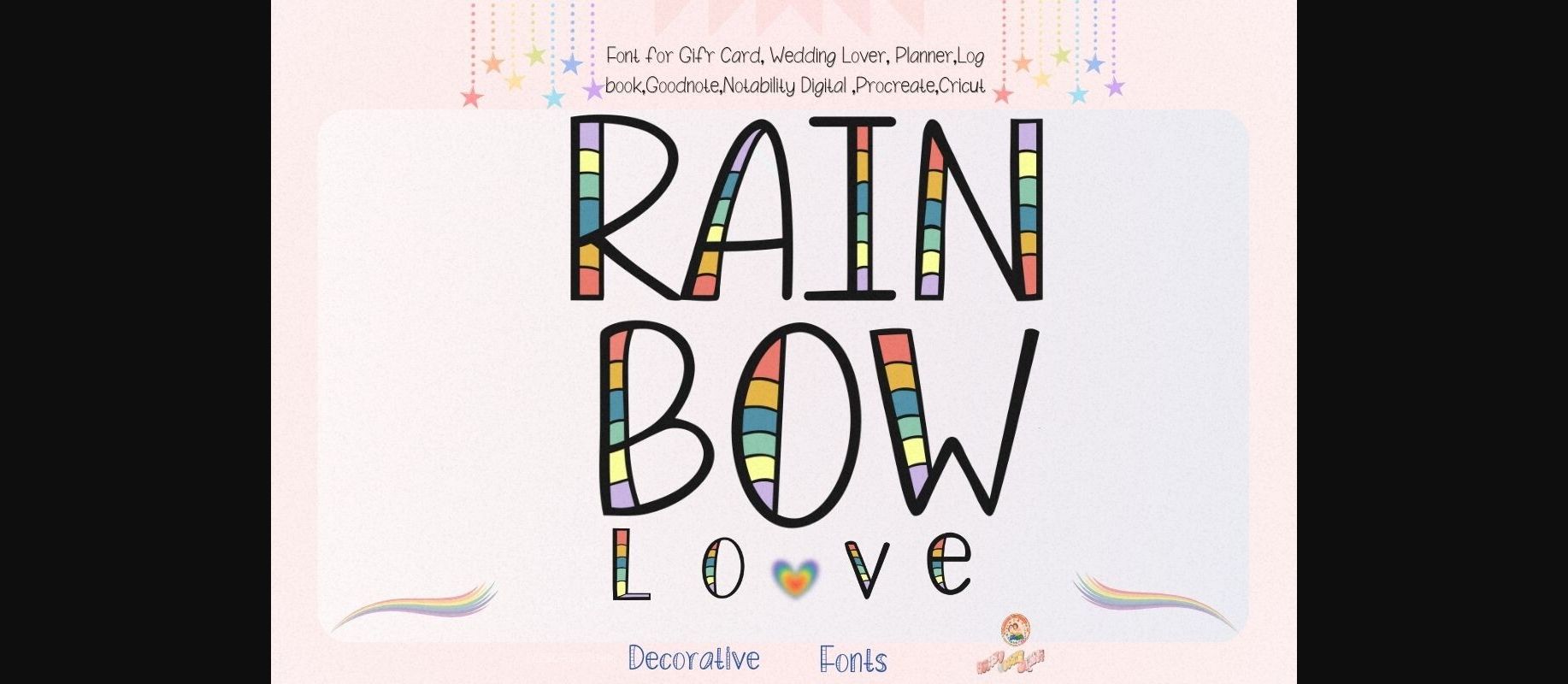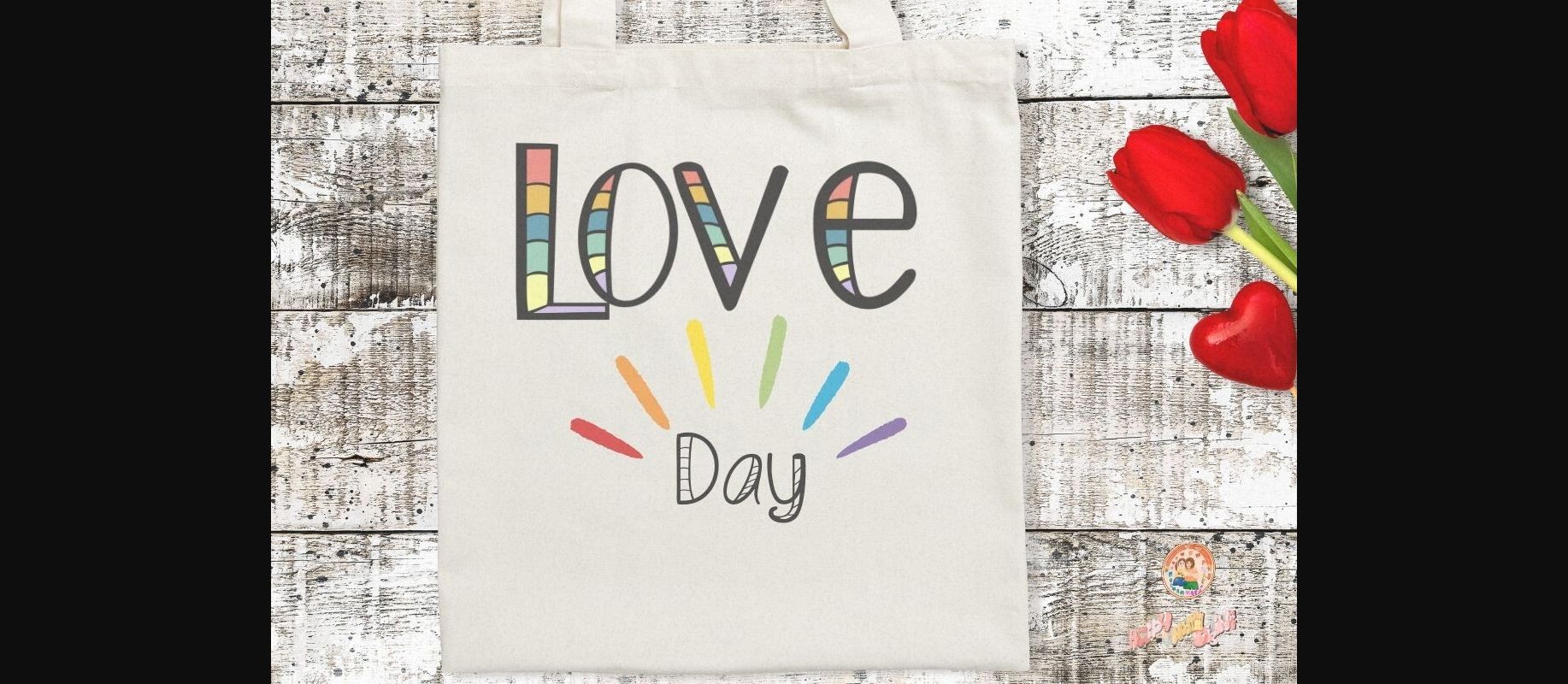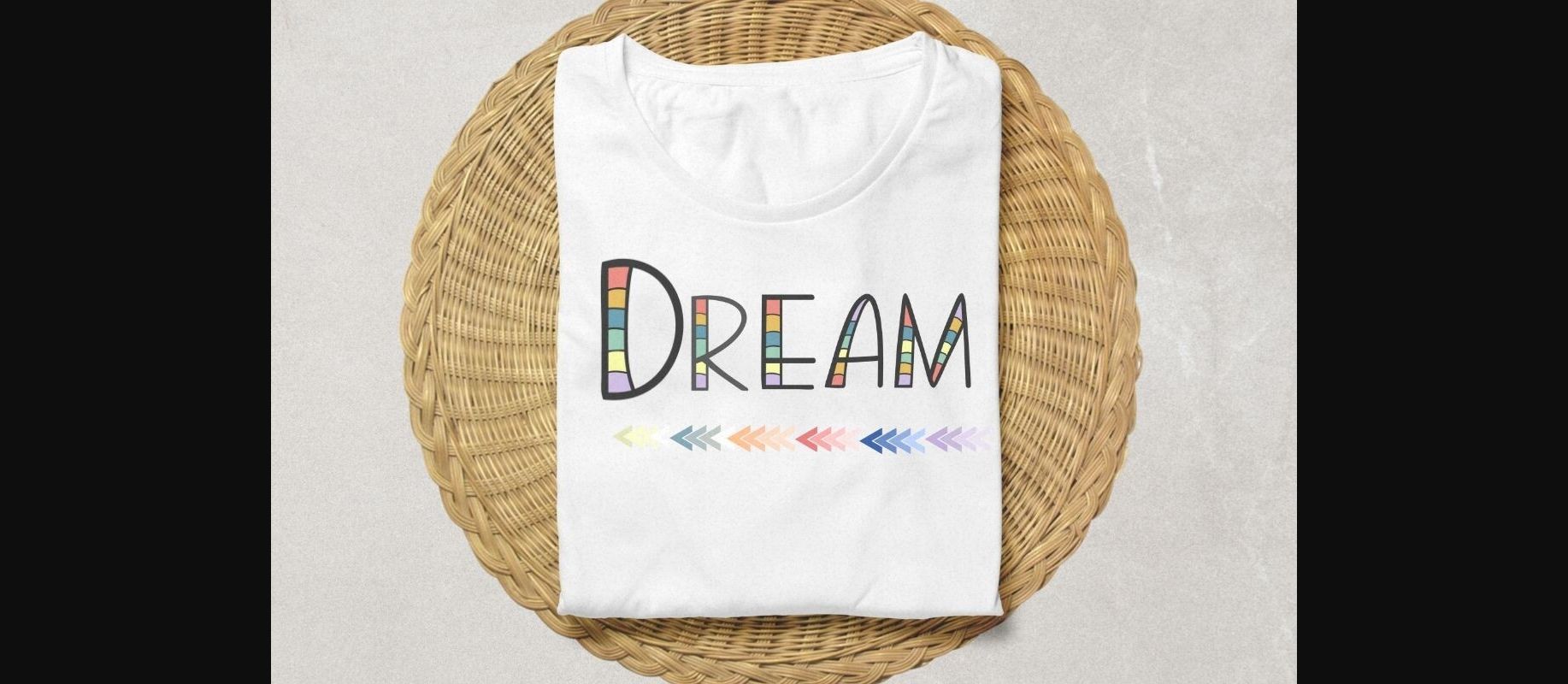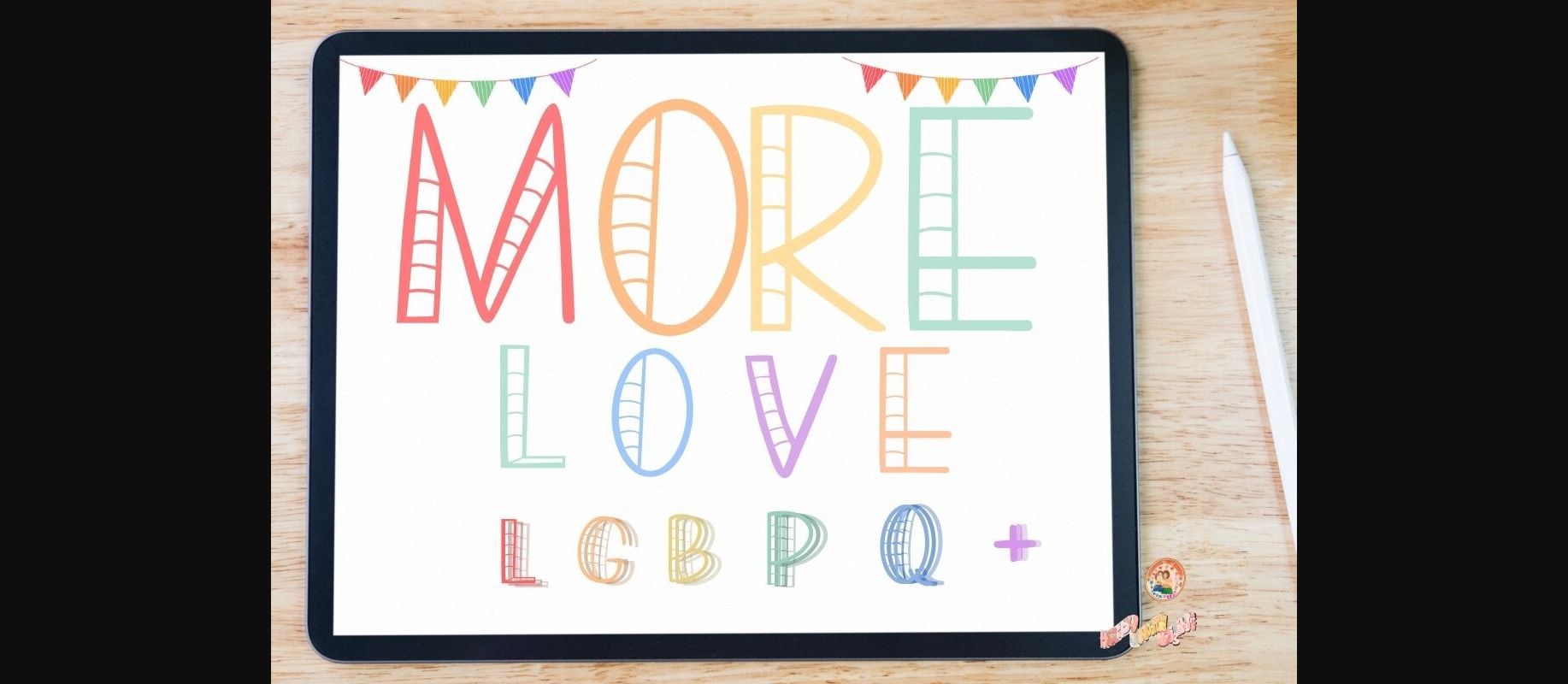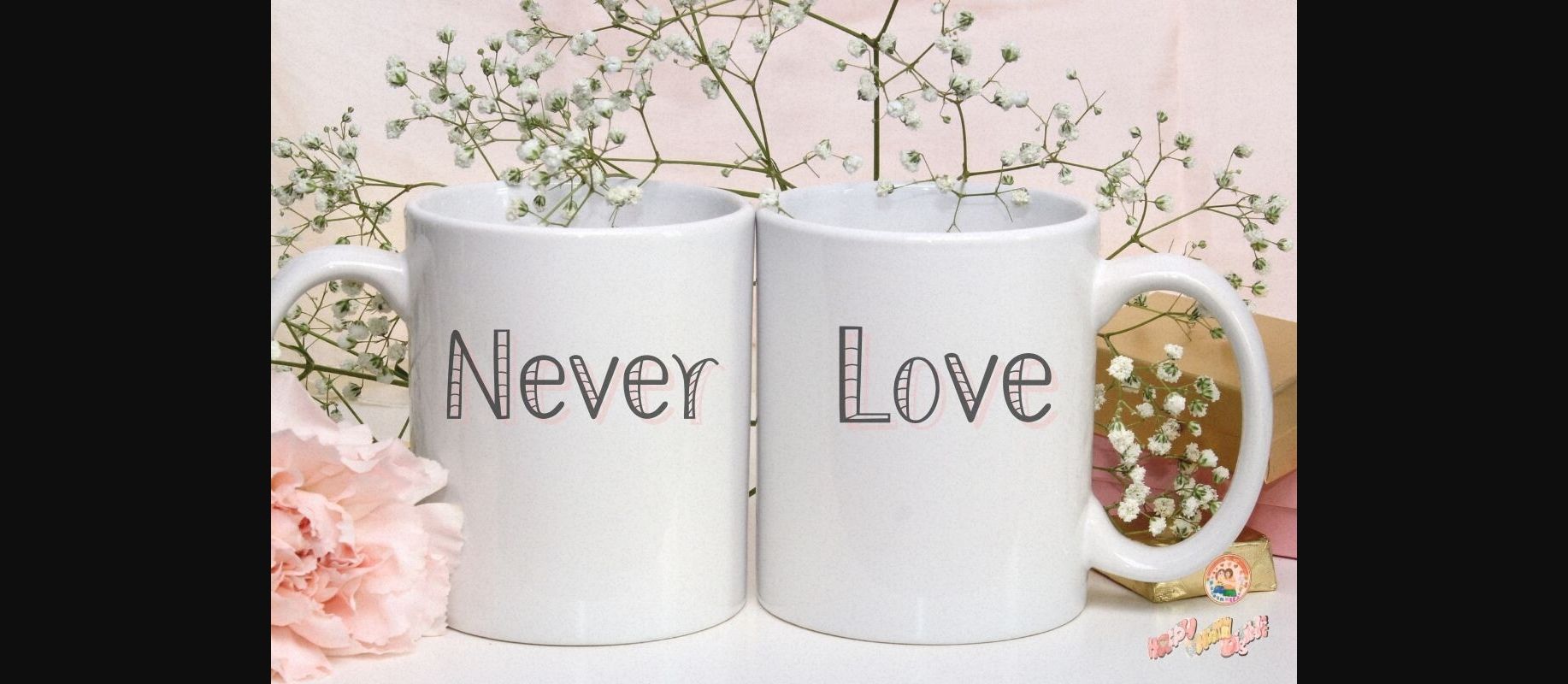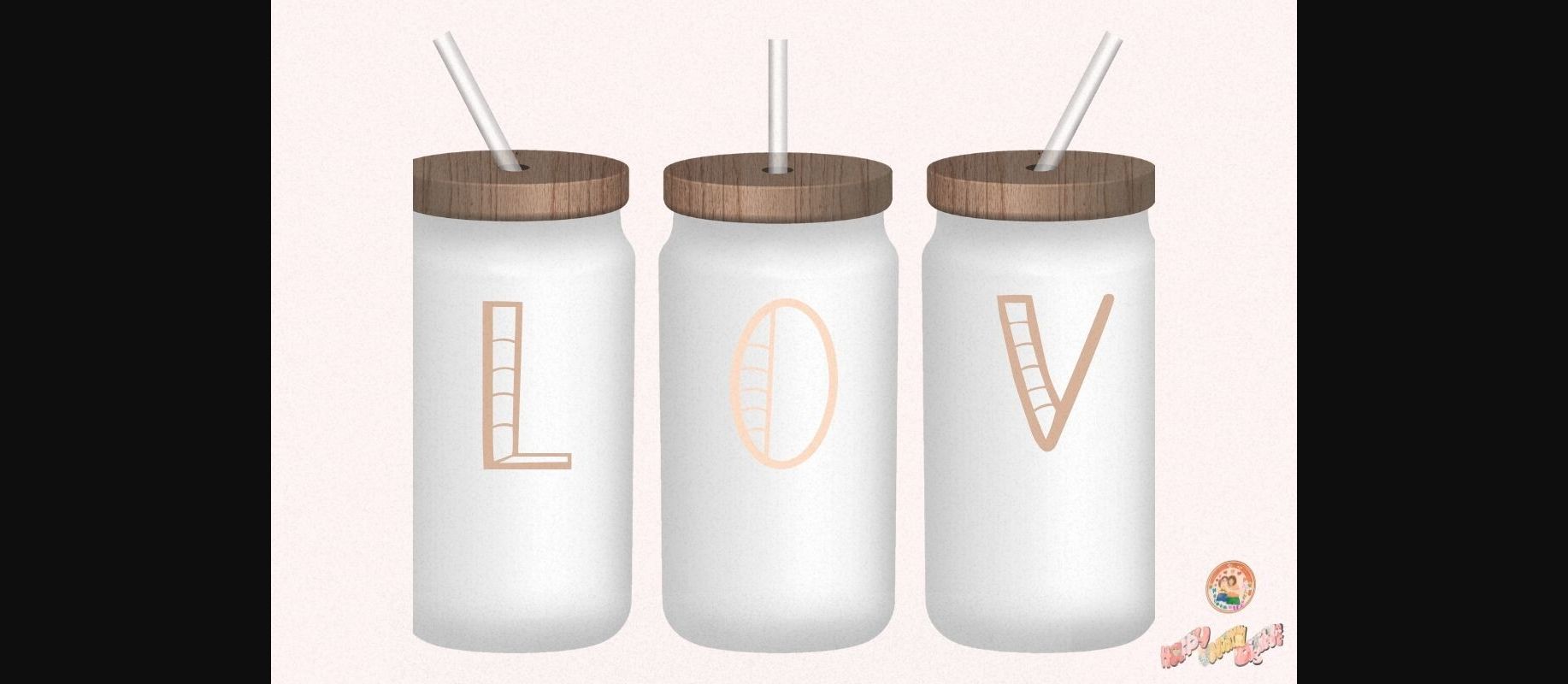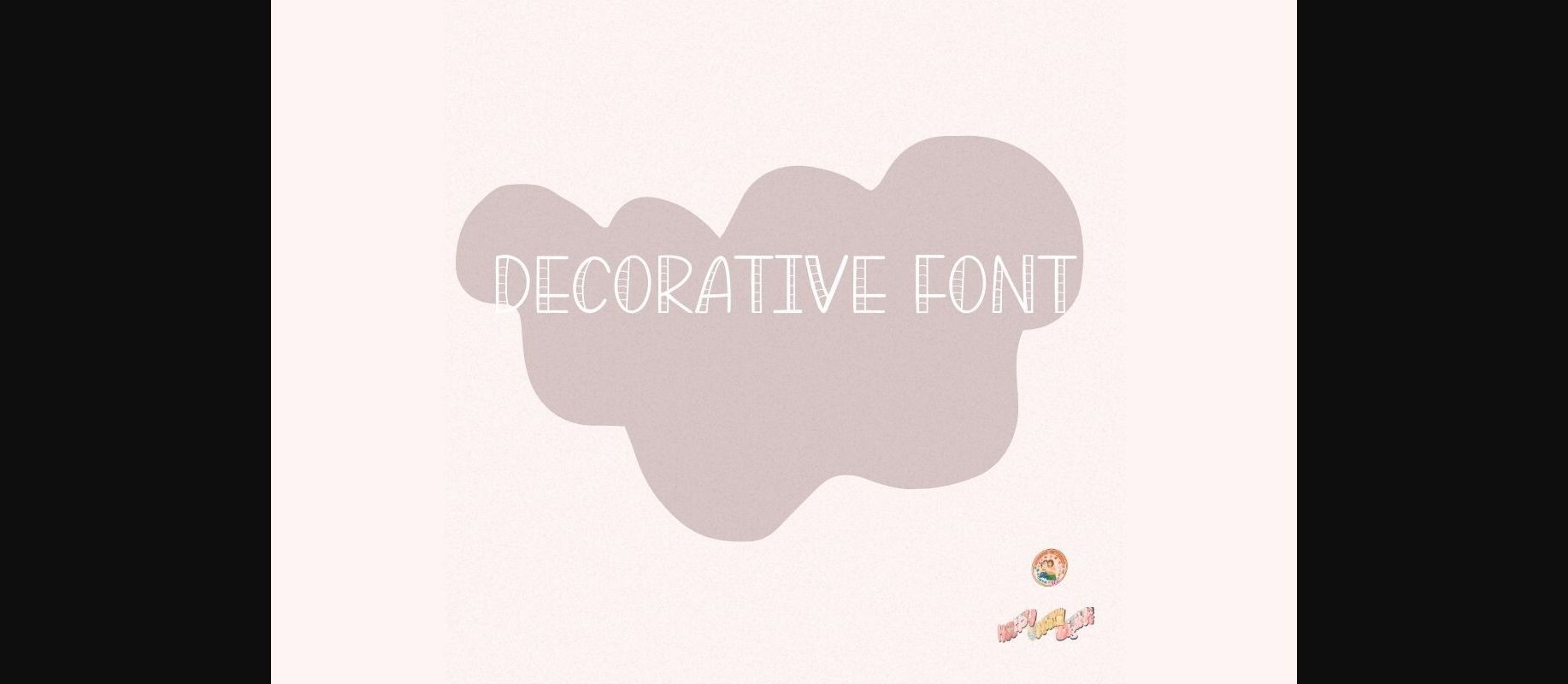
Rainbow Love Font
About Rainbow Love Font
Meet Rainbow Love, the sweet and playful decorative font that adds a touch of cuteness to your projects! Each letter comes alive with colorful stripes on one side, bringing a cheerful and vibrant vibe. Perfect for adding a whimsical charm to invitations, cards, or any creative endeavor, Rainbow Love is here to spread joy with its delightful design. Let your words dance with color and affection using this charming font.